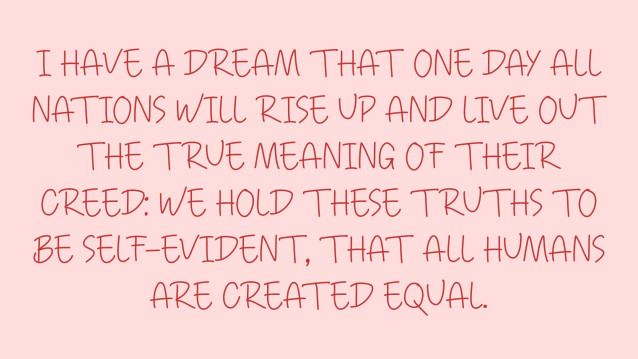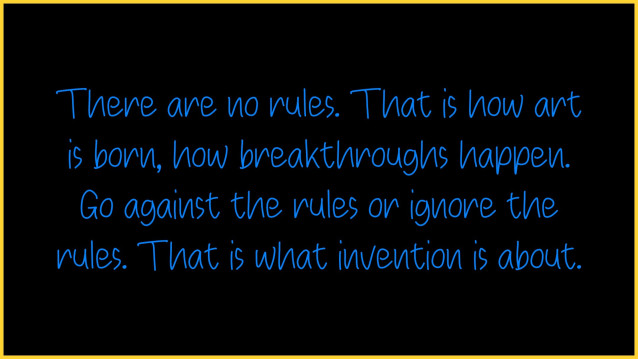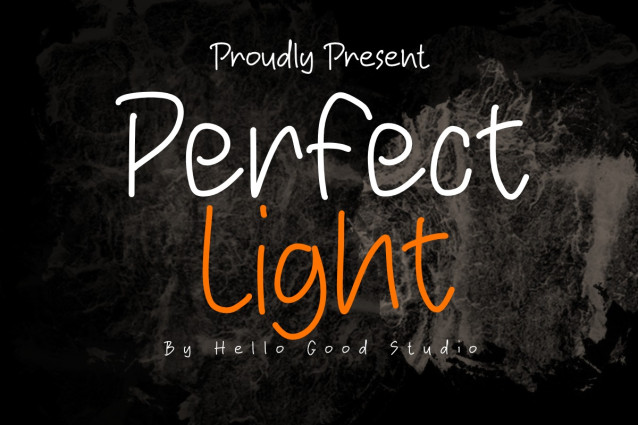
Perfect Light Font
Perfect Light Font is a simple and friendly handwritten font. Its natural and unique style makes it incredibly fitting to a large pool of designs. The only limit is your imagination!